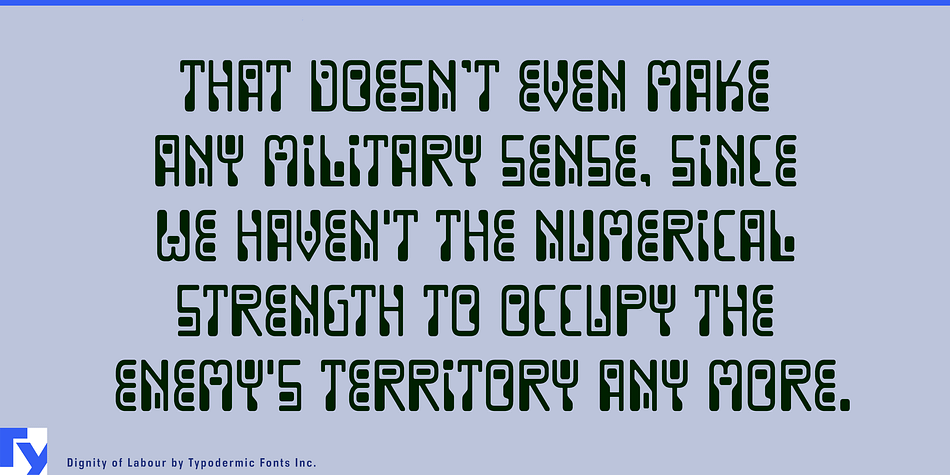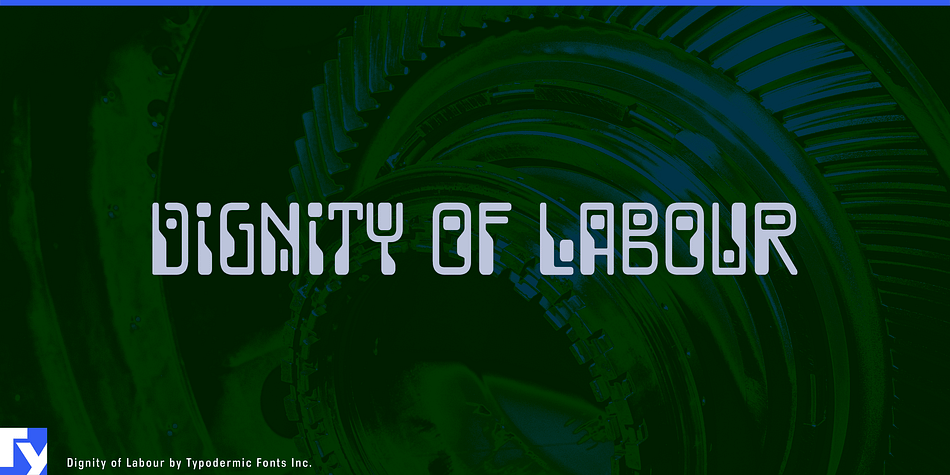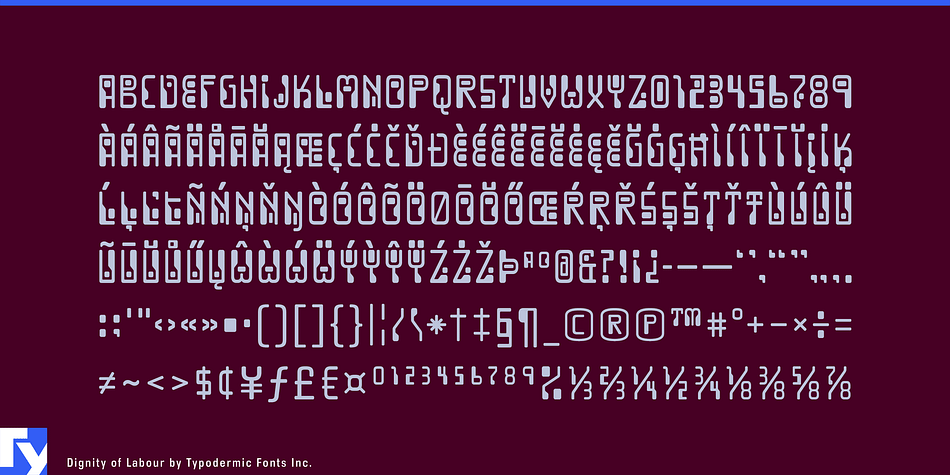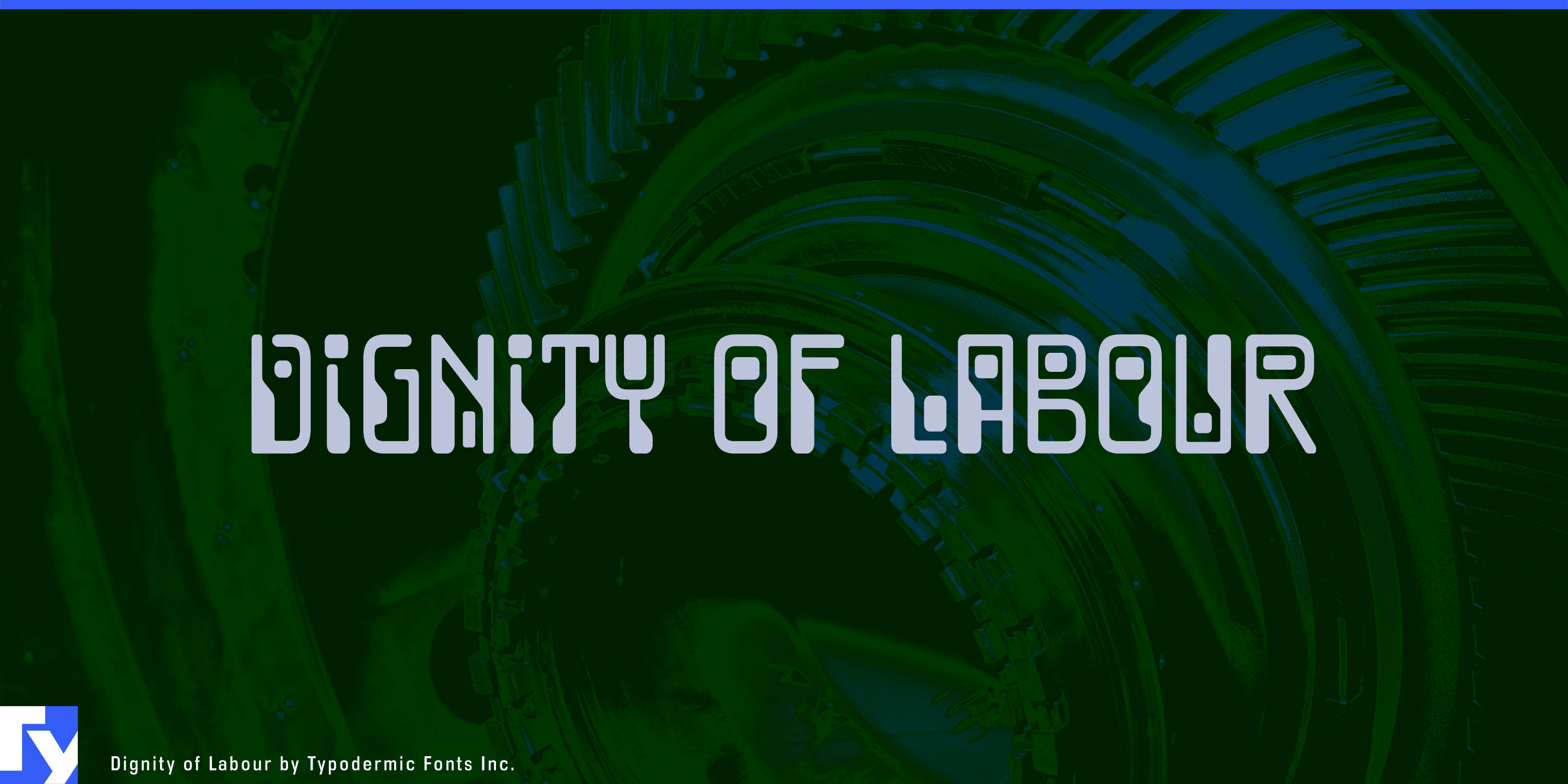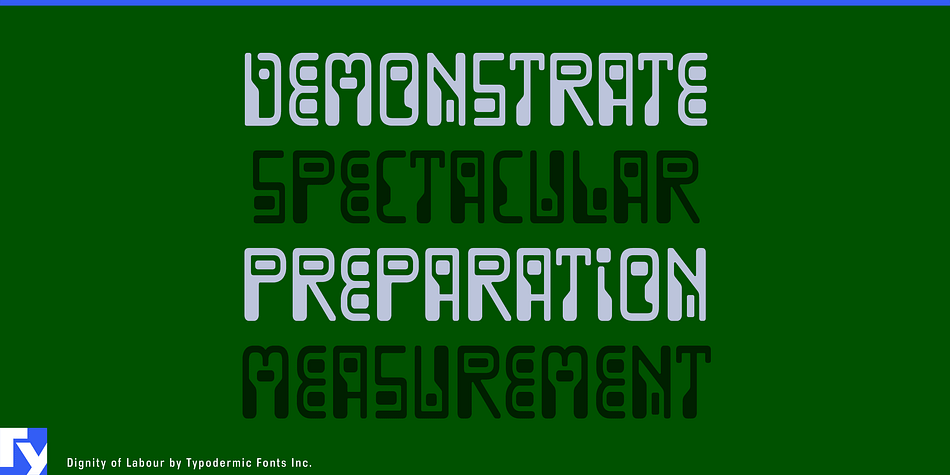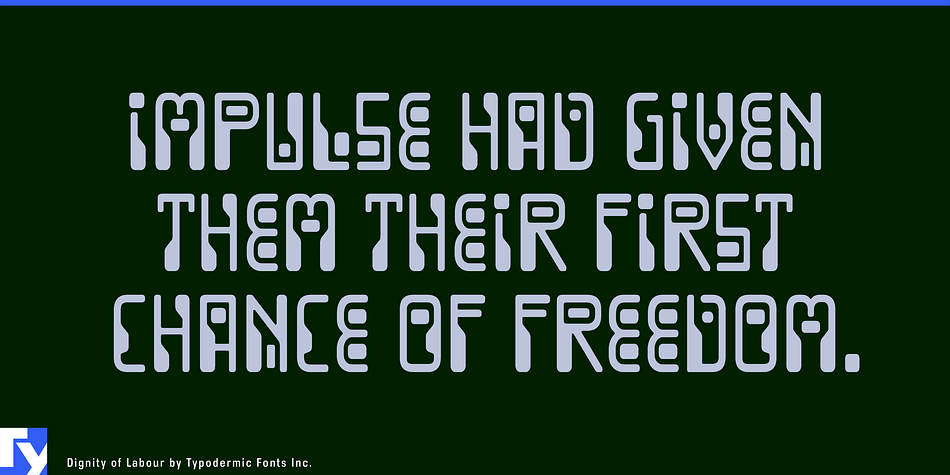
Dignity of Labour is a novelty and retro font published by Typodermic Fonts Inc.
Dignity of Labour is a bombastic homage to 1960s computer-oriented typefaces. Its intricate technological letterforms will give your message an authentic Y2K flavor. Most Latin-based European writing systems are supported, including the following languages. Afaan Oromo, Afar, Afrikaans, Albanian, Alsatian, Aromanian, Aymara, Bashkir (Latin), Basque, Belarusian (Latin), Bemba, Bikol, Bosnian, Breton, Cape Verdean, Creole, Catalan, Cebuano, Chamorro, Chavacano, Chichewa, Crimean Tatar (Latin), Croatian, Czech, Danish, Dawan, Dholuo, Dutch, English, Estonian, Faroese, Fijian, Filipino, Finnish, French, Frisian, Friulian, Gagauz (Latin), Galician, Ganda, Genoese, German, Greenlandic, Guadeloupean Creole, Haitian Creole, Hawaiian, Hiligaynon, Hungarian, Icelandic, Ilocano, Indonesian, Irish, Italian, Jamaican, Kaqchikel, Karakalpak (Latin), Kashubian, Kikongo, Kinyarwanda, Kirundi, Kurdish (Latin), Latvian, Lithuanian, Lombard, Low Saxon, Luxembourgish, Maasai, Makhuwa, Malay, Maltese, Māori, Moldovan, Montenegrin, Ndebele, Neapolitan, Norwegian, Novial, Occitan, Ossetian (Latin), Papiamento, Piedmontese, Polish, Portuguese, Quechua, Rarotongan, Romanian, Romansh, Sami, Sango, Saramaccan, Sardinian, Scottish Gaelic, Serbian (Latin), Shona, Sicilian, Silesian, Slovak, Slovenian, Somali, Sorbian, Sotho, Spanish, Swahili, Swazi, Swedish, Tagalog, Tahitian, Tetum, Tongan, Tshiluba, Tsonga, Tswana, Tumbuka, Turkish, Turkmen (Latin), Tuvaluan, Uzbek (Latin), Venetian, Vepsian, Võro, Walloon, Waray-Waray, Wayuu, Welsh, Wolof, Xhosa, Yapese, Zapotec Zulu and Zuni.